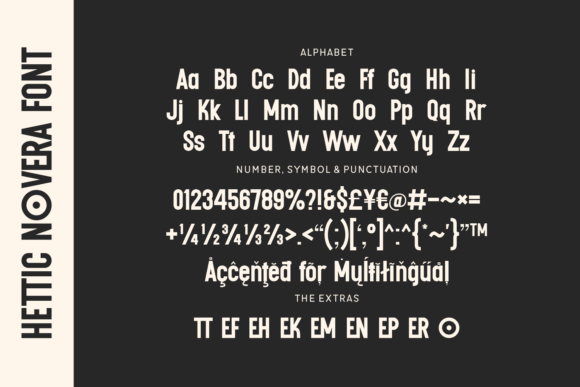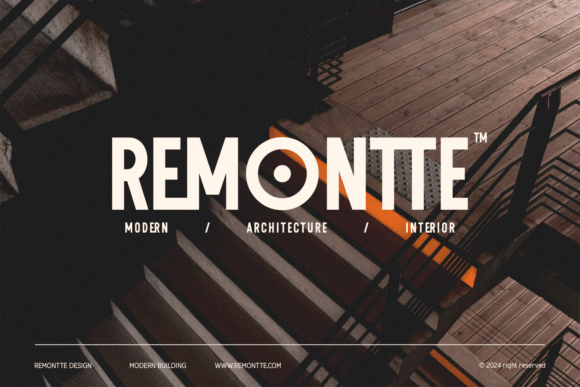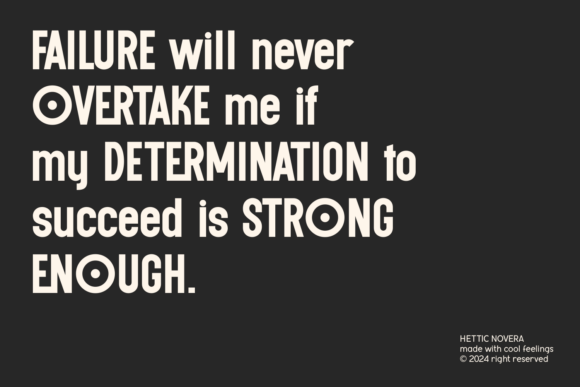
Introduction to Hettic Novera Font
Have you ever been stuck on a creative project, staring at a blank page, and desperately searching for the perfect font to bring your vision to life? I know I have. That’s why I’m excited to share with you the Hettic Novera Font, a modern sans serif font that’s sure to elevate your design game.
This stunning font features clean lines, a sleek design, and special ligatures that add a touch of sophistication to any text. Whether you’re working on a digital project with a transparent background or a print design that requires high-quality typography, Hettic Novera Font is the perfect design resource for you.
Key Features of Hettic Novera Font
- Transparent background option allows for seamless integration into any design, providing a clean and minimalist aesthetic.
- Features a large character set, making it suitable for a wide range of applications, from logos to body text.
Honest Review: Hettic Novera Font
As a designer, I’m always on the lookout for high-quality design resources that can elevate my creative projects. The Hettic Novera Font is one such resource that I’ve been experimenting with, and I’m excited to share my thoughts with you.
- ✨ The font is incredibly versatile, with a range of styles and weights that can be used for various design applications.
- ✨ The design is clean and modern, making it perfect for creating a sleek and professional look for your projects.
Overall, I’m impressed with the Hettic Novera Font’s quality and versatility. While it may have some limitations, it’s a great resource for designers who want to add a touch of sophistication to their projects. With a bit of experimentation and creativity, I’m sure you can unlock the full potential of this font.
Tips for Getting the Most Out of the Hettic Novera Font
Use the Hettic Novera Font for creative projects that require a high-quality, transparent background. This font is ideal for design projects that need a clean and modern look.
Common Use Cases for the Hettic Novera Font
The Hettic Novera Font is commonly used in branding, advertising, and graphic design projects. It is also suitable for use in presentations, reports, and other business documents.
Yes, the Hettic Novera Font is an excellent choice for digital design projects. Its high-quality design and clean lines make it perfect for use in digital applications, such as websites, mobile apps, and social media graphics. Additionally, the font’s transparent background feature allows you to easily integrate it into your design without worrying about background